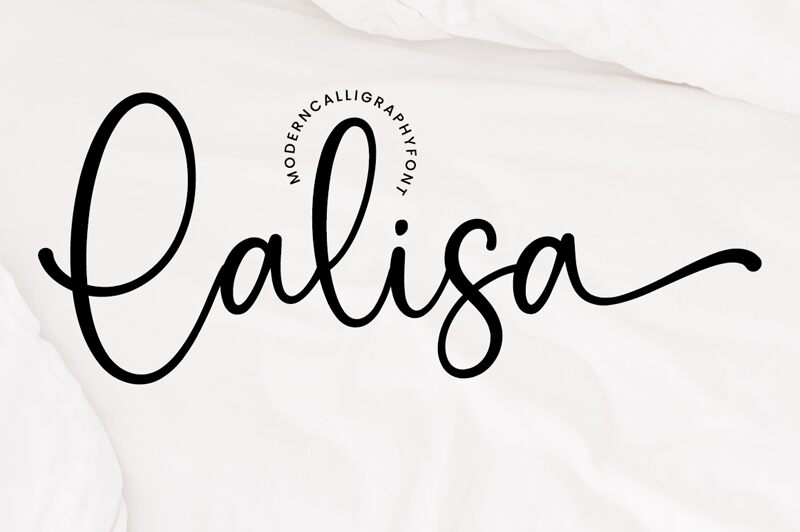
Lalisa
Lalisa, a light and delicate handwritten font created by Ramli Setiadi, is perfect for adding a personal touch to any project. From wedding invitations and greeting cards to logos and branding materials, Lalisa's charming script will add personality and warmth.